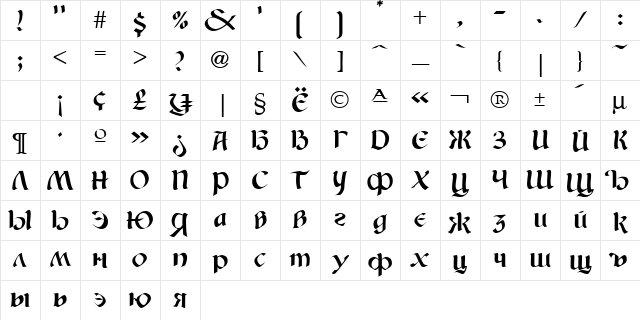
Vikant TYGRA Normal
Design Context for Vikant TYGRA
Vikant TYGRA is a composed and adaptable typeface that performs quietly and consistently across a wide range of design contexts.